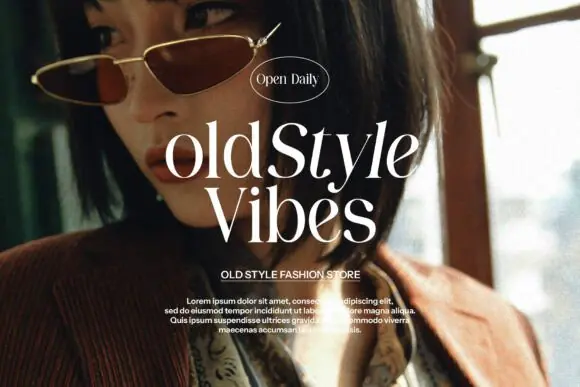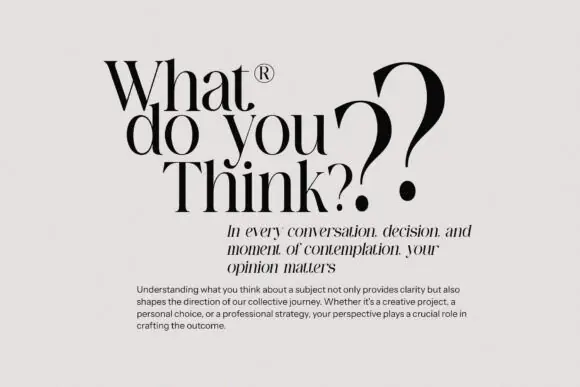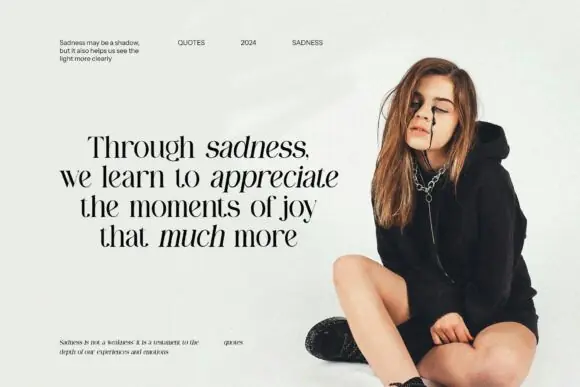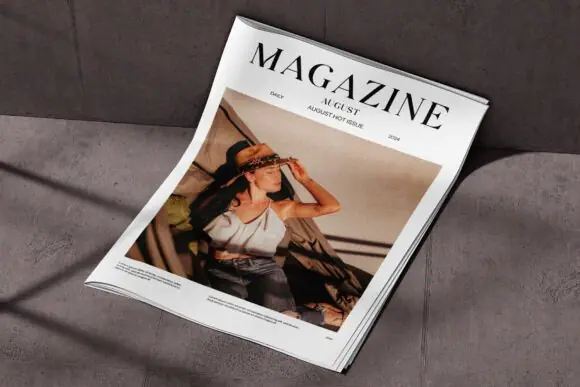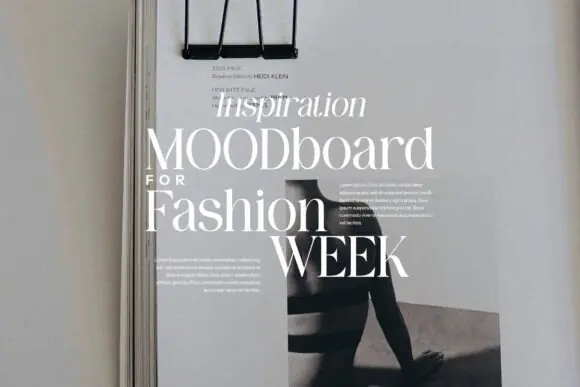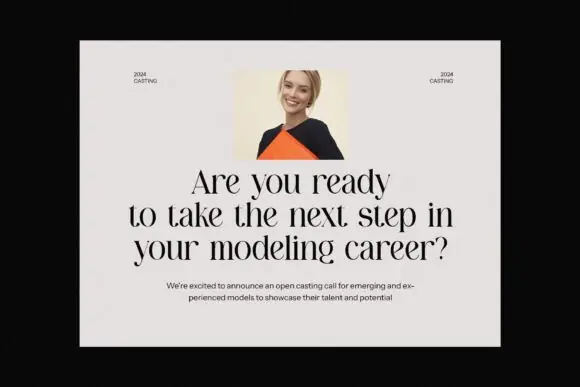
Elegant Font – Smooth Stylish Thin-Line Typeface with Graceful Curves for Luxury Branding, Logos, Invitations, Packaging, Editorial Designs, Social Media Graphics & Sophisticated Creative Projects
Create classy, refined, and sophisticated designs with Elegant Font, a stylish typeface featuring smooth letters, thin lines, and graceful curves. Its polished visual style gives your typography a premium and timeless appearance, making it perfect for creative projects that need beauty, simplicity, and elegance.
Elegant Font is ideal for luxury branding, logos, wedding invitations, greeting cards, product packaging, boutique labels, editorial layouts, magazine titles, fashion designs, beauty branding, stationery, business cards, social media graphics, website headers, quote designs, printable wall art, and premium marketing materials. Its thin-line structure and graceful curves help your text feel clean, stylish, and professionally designed.
Whether you are creating a sophisticated logo, luxury invitation, elegant product label, fashion campaign, or refined social media post, Elegant Font adds a classy touch that makes your design feel more memorable and high-end. It is especially useful for designers, branding specialists, wedding creators, boutique owners, beauty brands, small business owners, and digital product sellers who want a smooth, stylish, and versatile elegant typeface.
Luxury branding, logos, wedding invitations, greeting cards, packaging, product labels, editorial layouts, magazine titles, fashion designs, beauty branding, stationery, business cards, social media posts, website headers, quote designs, printable wall art, and premium creative layouts.
Key Features
• Smooth and stylish letterforms
• Thin lines with graceful curves
• Classy, sophisticated, and elegant appearance
• Great for luxury branding and logos
• Perfect for invitations, packaging, and editorial designs
• Suitable for digital, print, craft, and commercial projects
• Adds a polished high-end touch to typography